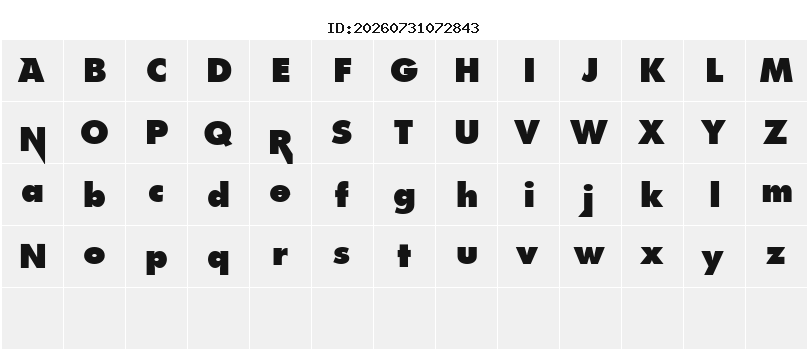
• Font Name: Linkin Park ExtraBold
• Full Font Name: Linkin Park Extra Bold
• Designer: cbabb
About Linkin Park ExtraBold.ttf
Linkin Park ExtraBold.ttf is a modern, elegant sans-serif font designed for ultimate readability and visual harmony. Perfect for branding, headlines, web design, and print materials.